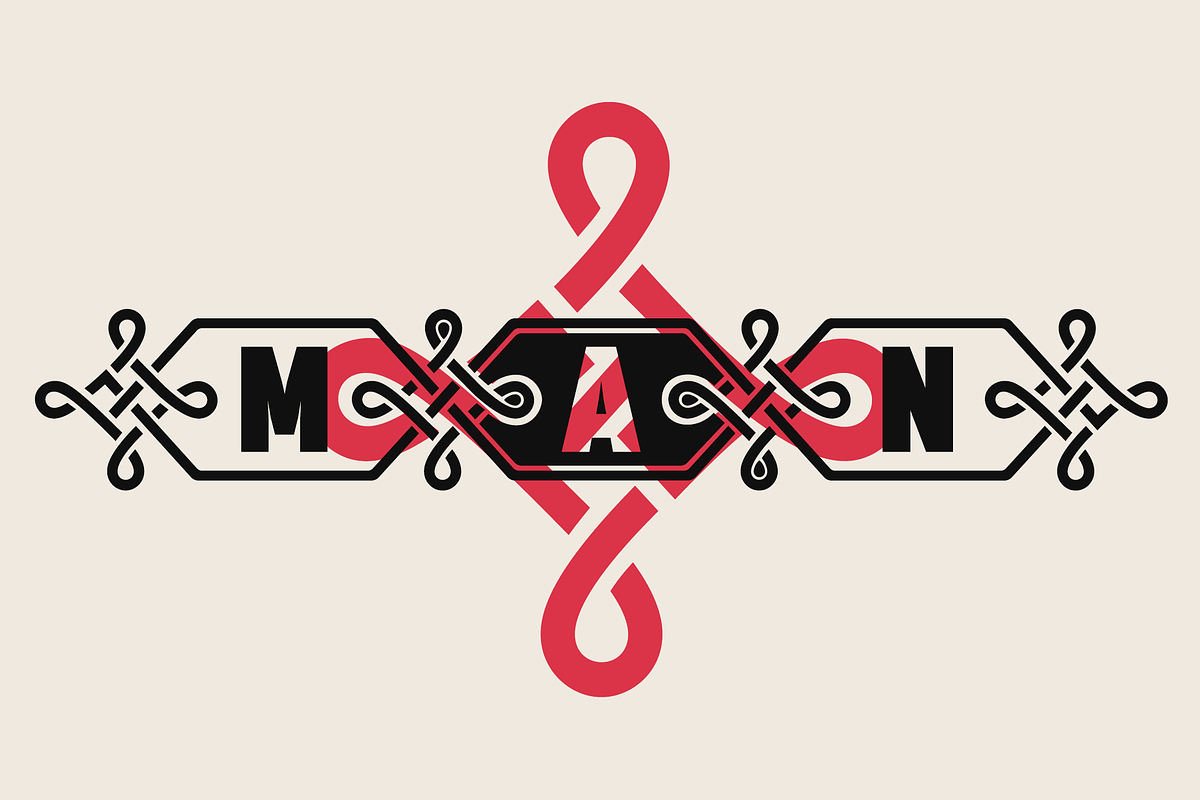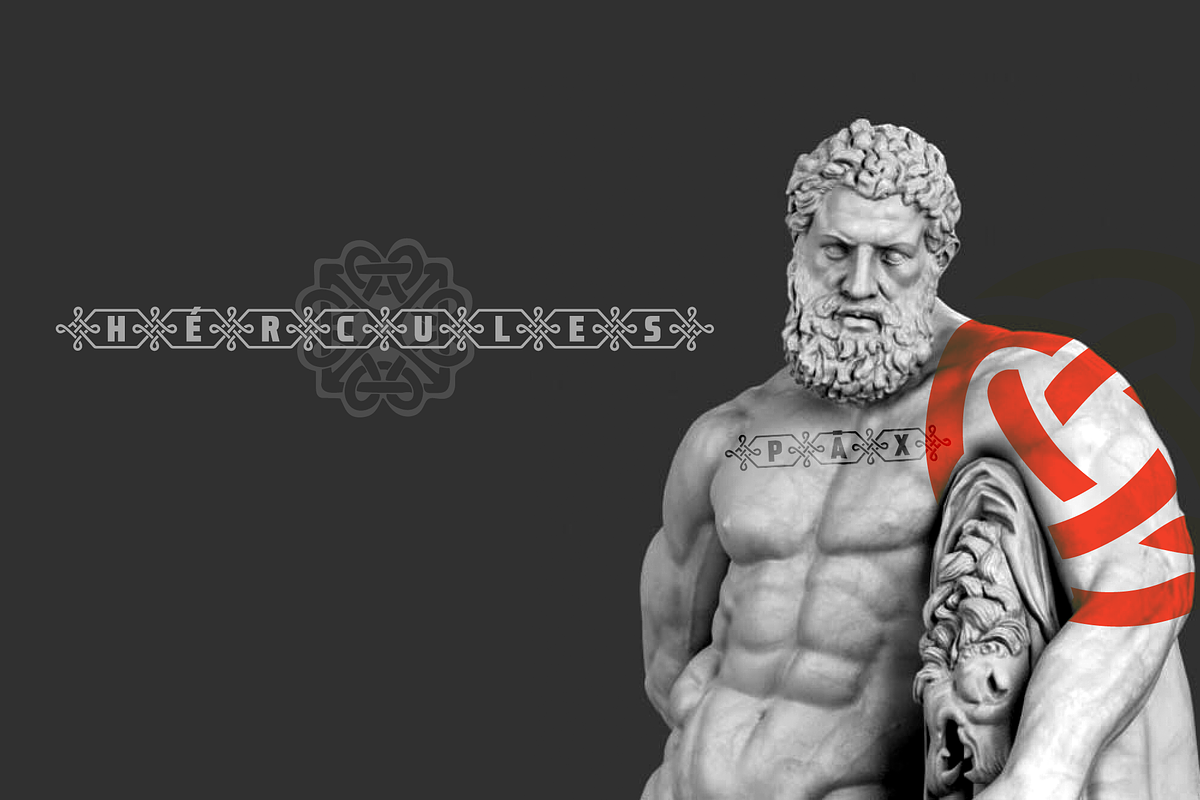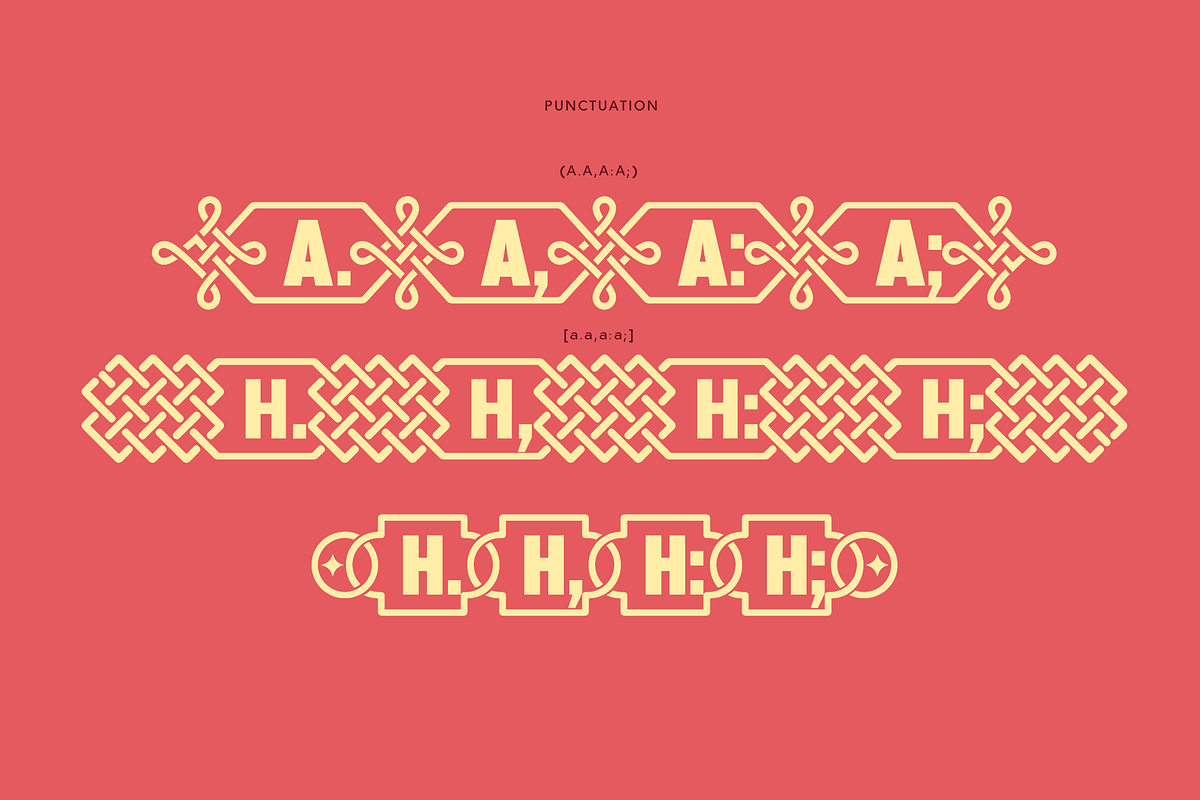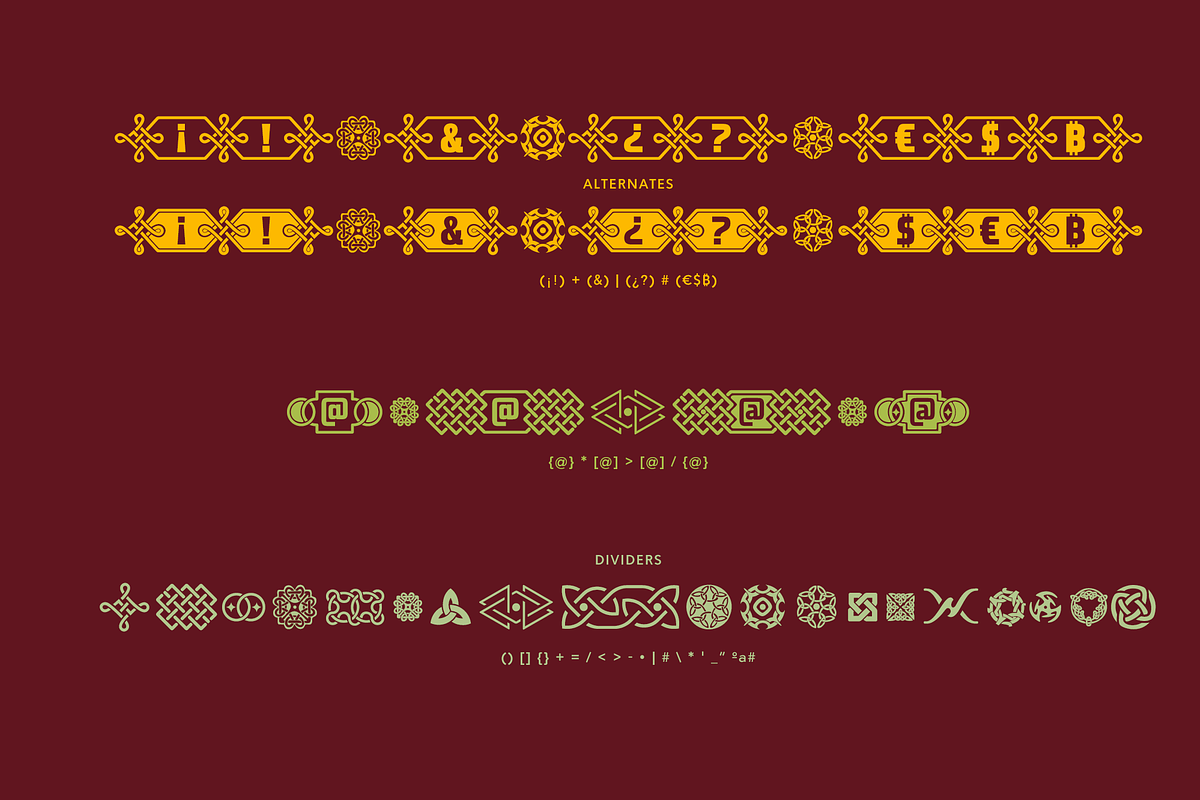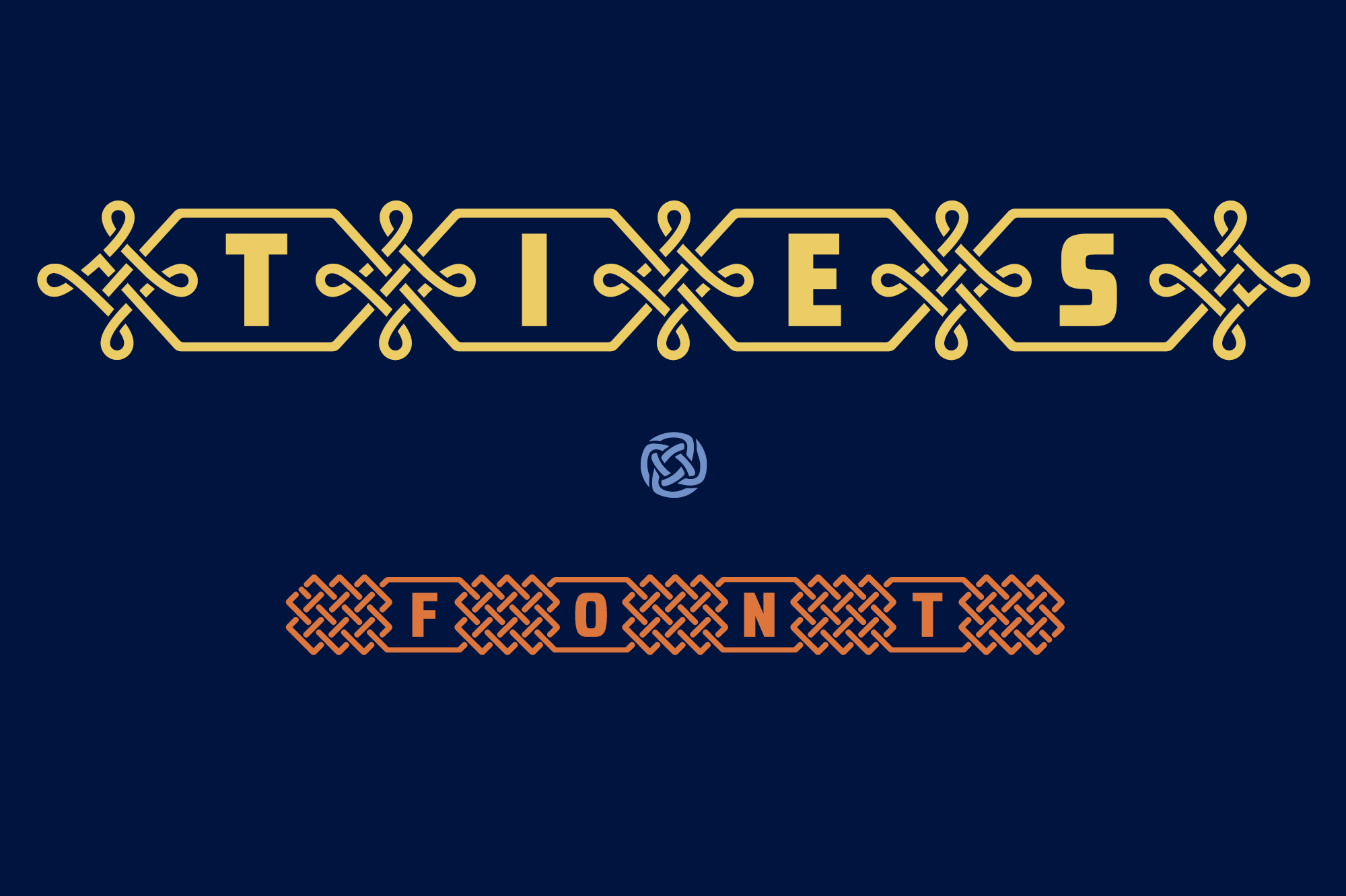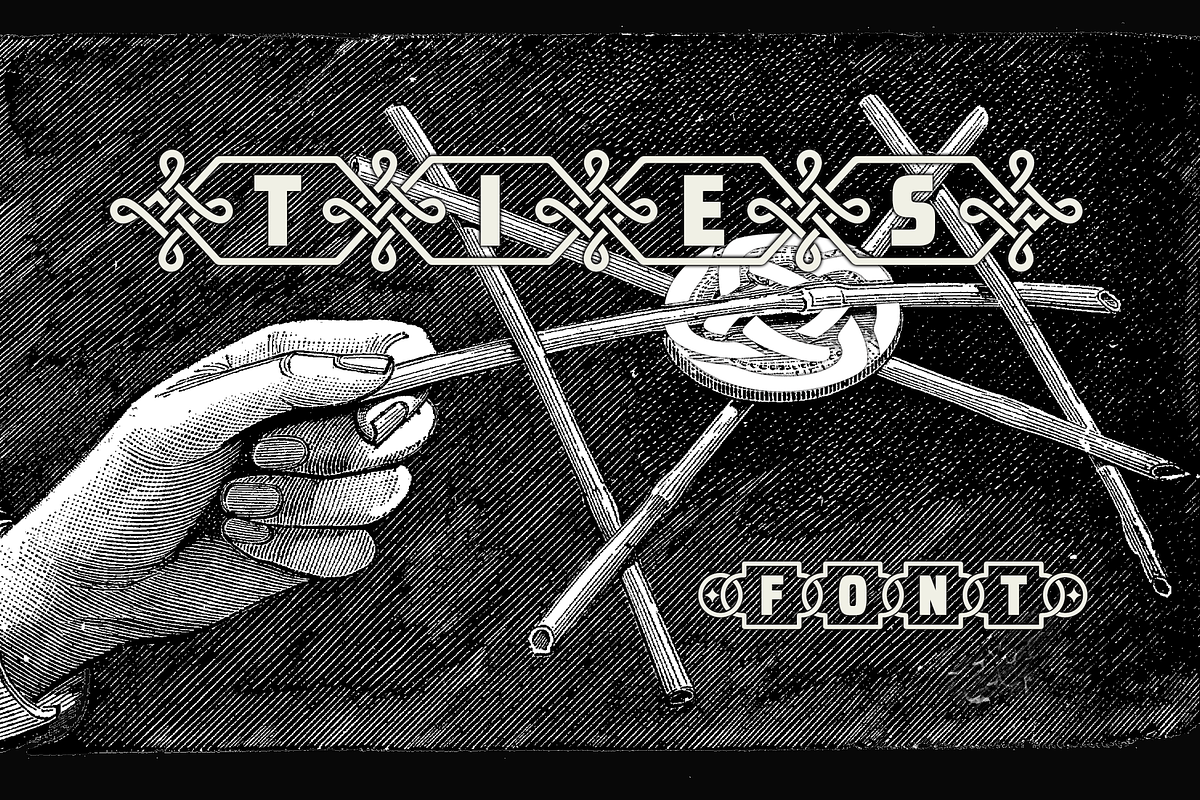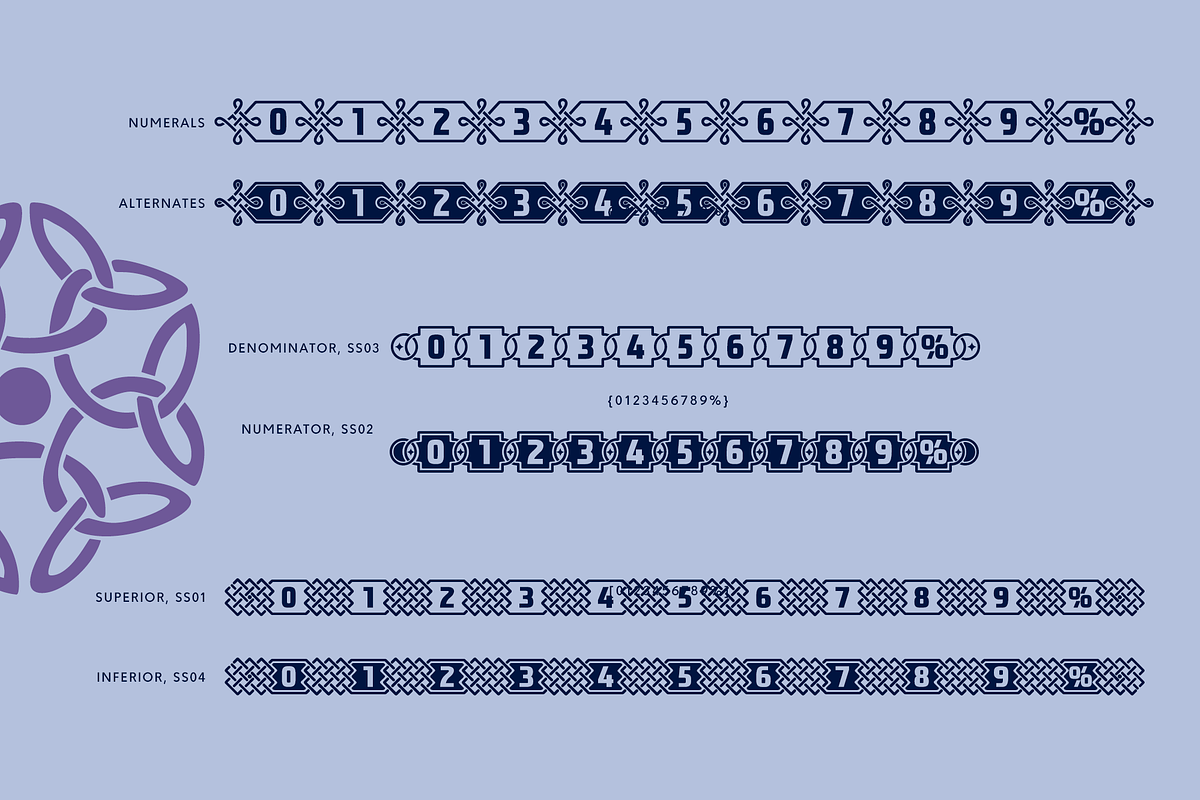
TIES | Display Tribal Banner Font
TIES is a display historic banner-style typeface with a tribal style. The result is an intertwined and decorative alphabet that combines strength and elegance.
It originated as a banner-style font, where each character is integrated into a frame intertwined with the next by knots. These knots are not simple ornaments: they are flowing, tribal-style ribbons and bows that reinforce the visual rhythm.
The result is an alphabet that combines strength, elegance, ornamentation, and structure in perfect harmony.